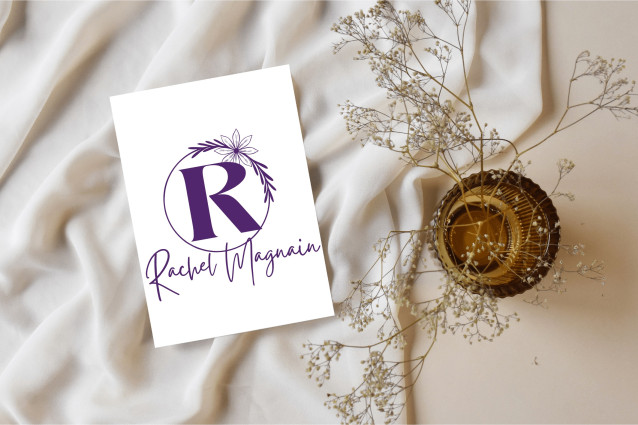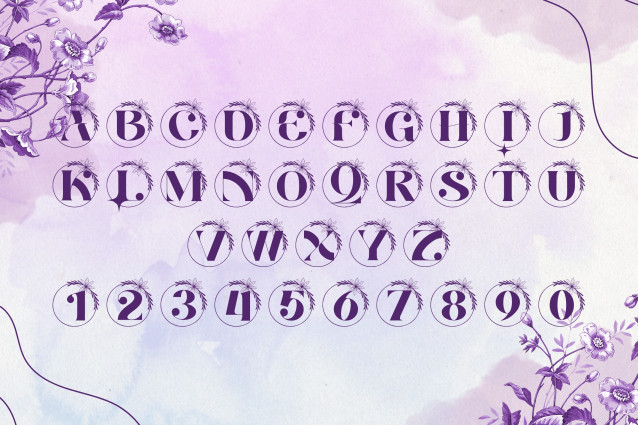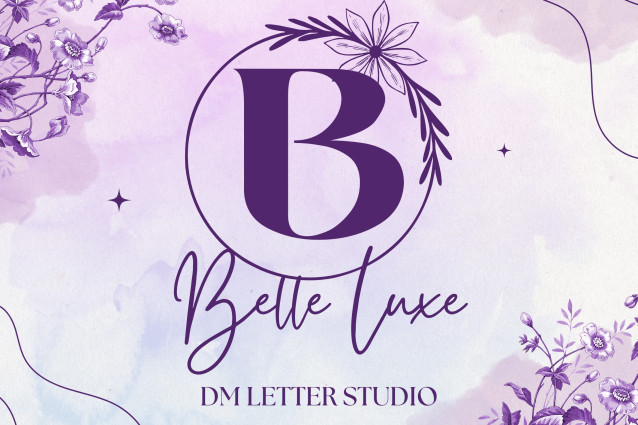
Belle Luxe Monogram Font
Belle Luxe Monogram Font is a high-end serif font designed to embody sophistication and grace. Each uppercase letter is crafted with fine-tuned balance, exuding timeless elegance and upscale refinement. Perfect for luxurious wedding monograms, signature logos, premium packaging, and personalized stationery, Belle Luxe brings an aura of grandeur to every design.